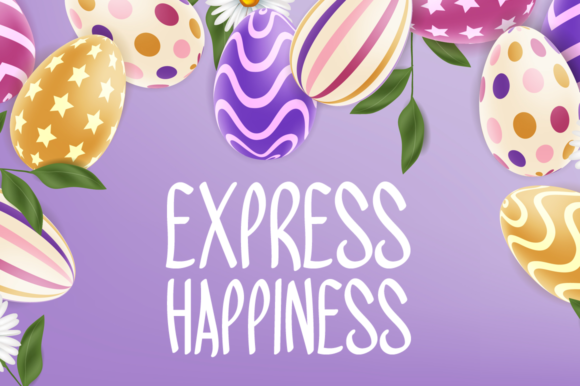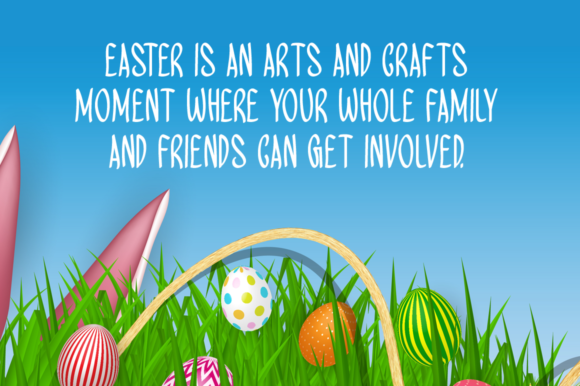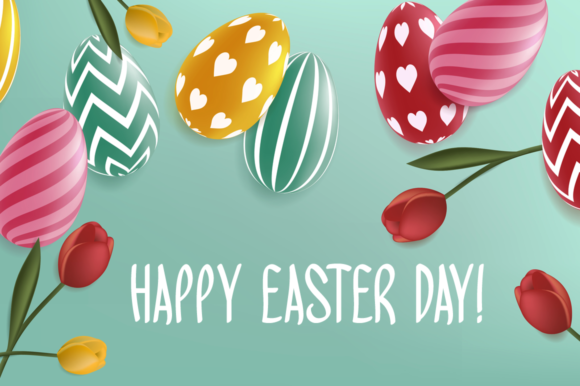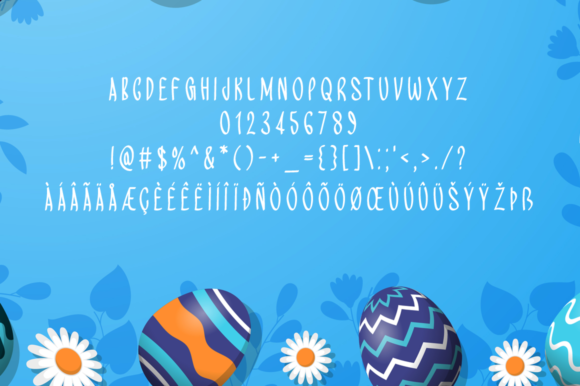
Introducing Easter Discover: The Perfect Display Font for Creative Projects
I’ll never forget the feeling of being stuck on a design project, scouring the internet for the perfect font to bring my vision to life. It was like searching for a needle in a haystack – frustrating and time-consuming. But then, I stumbled upon Easter Discover, and it was love at first sight! 💕 In this article, I’ll share my experience with this amazing display font, its features, and how to make the most of it in your creative projects.
A Personal Encounter with Easter Discover
I was working on a stationery design project for a client who wanted a unique and playful look. I had tried several fonts, but none of them seemed to fit the bill. That’s when I discovered Easter Discover. Its bold, yet elegant design immediately caught my attention, and I knew I had found the perfect fit. The font’s versatility and wide range of applications, from logos to website headers, made it an excellent choice for my project.
An Honest Review of Easter Discover
So, what makes Easter Discover so special? Let’s dive into the good stuff! 😊
- ✨ Unique and eye-catching design: Easter Discover boasts a distinctive style that’s sure to make your projects stand out.
- ✅ Highly versatile: This font is perfect for a wide range of applications, including stationery, logos, t-shirts, paper, print design, website headers, photo frames, flyers, music covers, posters, and more!
- 💻 Easy to read: Despite its bold design, Easter Discover remains highly legible, making it perfect for headlines and titles.
Now, let’s talk about a few minor quirks:
- 🤔 Limited suitability for body text: Easter Discover is a display font, so it’s best used for headlines and titles rather than large blocks of text.
- ⚠️ Some characters may require manual kerning: While the font is generally well-spaced, some character combinations might require manual kerning for optimal results.
The Story Behind Easter Discover
Easter Discover was designed with the goal of creating a unique and versatile display font that would inspire creativity and bring a touch of playfulness to any design project. The designer’s passion for typography and commitment to quality resulted in a font that’s both elegant and fun.
| What is Easter Discover? | Easter Discover is a brand new display font designed for creative projects, including stationery, logos, t-shirts, and more. |